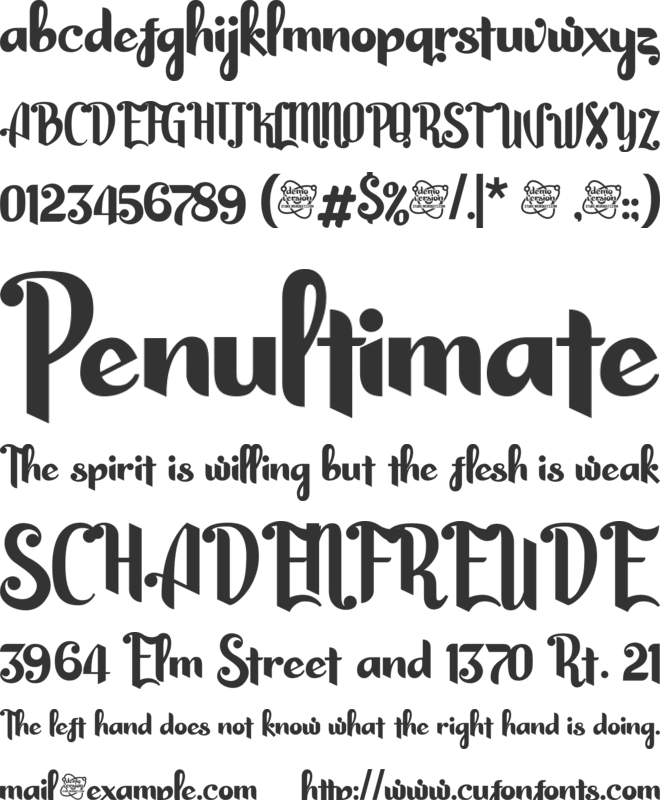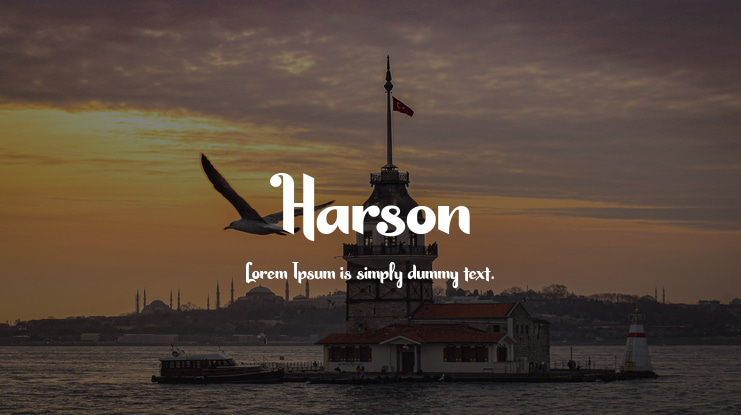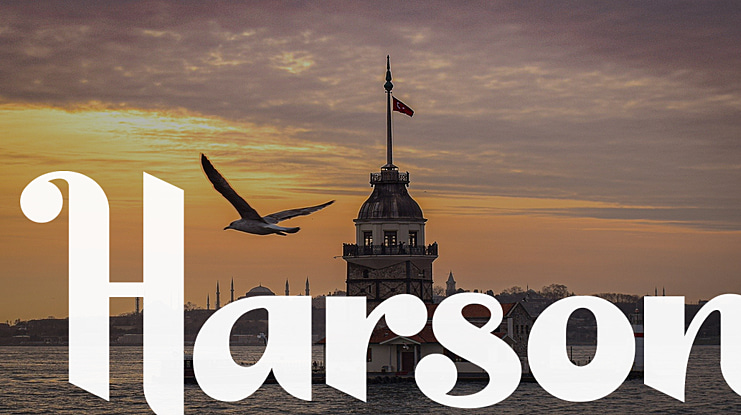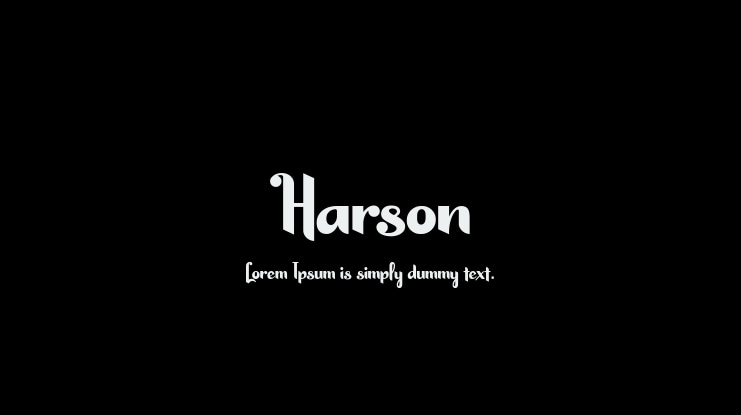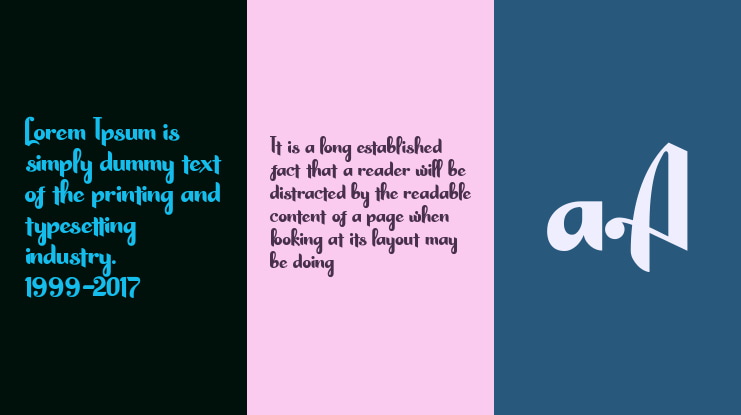
Harson Font
Aditya Nugraha Putra
Features: - Regular, Italic, Soft and Soft-Italic style. - Standard characters set (uppercase, lowercase, numerals, punctuations, and currency symbols). - Multilangual (Accented characters available). - Common Ligatures. - Uppercase Alternates (best used as opening character). - Lowercase Alternates (best used as final character). - Contextual Alternates (auto generate final lowercase alternate when typing).